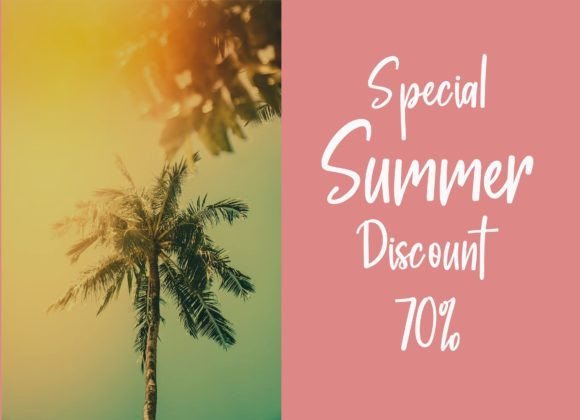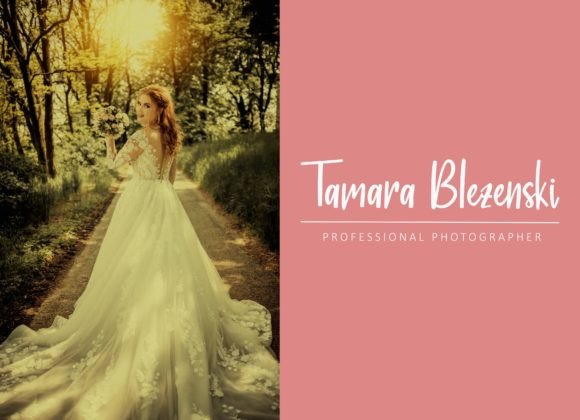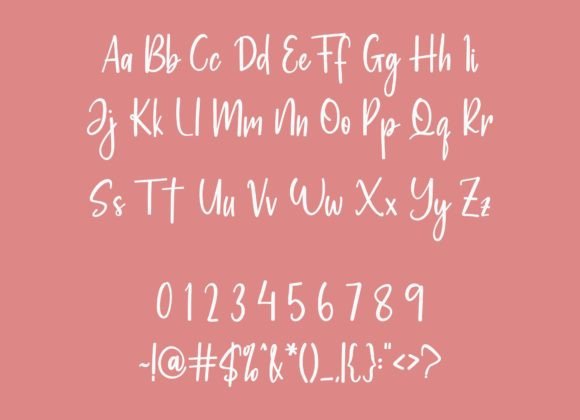
Embracing the Beauty of Handmade Typography
As a designer, there’s nothing quite like the thrill of discovering a new font that sparks your creativity. You’re browsing through a vast collection of digital fonts, and suddenly, one catches your eye. Its elegant touch, unique character, and timeless style leave you breathless. This is exactly what happens when you stumble upon the Fashion Handmade Font.
This beautiful handwritten font is designed to add a touch of sophistication to your favorite projects. Its distinct style is perfect for creating spectacular designs that stand out from the crowd. Whether you’re working on a fashion blog, a luxury brand, or a creative project, Fashion Handmade Font is an excellent choice.
Fashion Handmade Font Key Features
- Unique Characteristics: Fashion Handmade Font features a distressed, handmade aesthetic with varying line widths, subtle imperfections, and a touch of whimsy, making it perfect for creative and artistic designs.
- Character Set: The font includes a comprehensive set of characters, including uppercase and lowercase letters, numbers, punctuation, and special characters, making it suitable for a variety of design applications.
- Language Support: Fashion Handmade Font supports a wide range of languages, including English, Spanish, French, German, Italian, Portuguese, and many more, allowing for global design flexibility.
Review of Fashion Handmade Font
I recently had the chance to work with the Fashion Handmade Font, and I must say it’s a unique and eye-catching addition to any design project.
Here’s what I like about it:
- ✨ It’s perfect for creating a vintage or bohemian vibe, which is great for fashion or lifestyle brands.
- ✨ The hand-drawn feel gives it a personal and authentic touch, which can be really appealing to customers.
- ✨ The font is highly customizable, allowing me to adjust the size, color, and style to fit my design needs.
- ⚠️ The font may not be suitable for all types of projects, such as formal or corporate designs, where a more traditional font may be more fitting.
- ⚠️ Some characters may not be available or may not render properly, which can be frustrating for designers.
Overall, I’m impressed with the Fashion Handmade Font, but it’s not a one-size-fits-all solution. It’s perfect for designers who want to add a touch of personality and whimsy to their projects, but may not be the best choice for more traditional designs.
To get the most out of the Fashion Handmade Font, use it sparingly and in context. This font is perfect for adding a touch of whimsy and personality to your designs. Experiment with different font sizes, colors, and styles to create a unique look that suits your brand or style.
The Fashion Handmade Font is ideal for use in fashion-related designs, such as clothing labels, fashion magazines, and e-commerce websites. It’s also great for adding a touch of personality to social media graphics, blog posts, and other creative content.